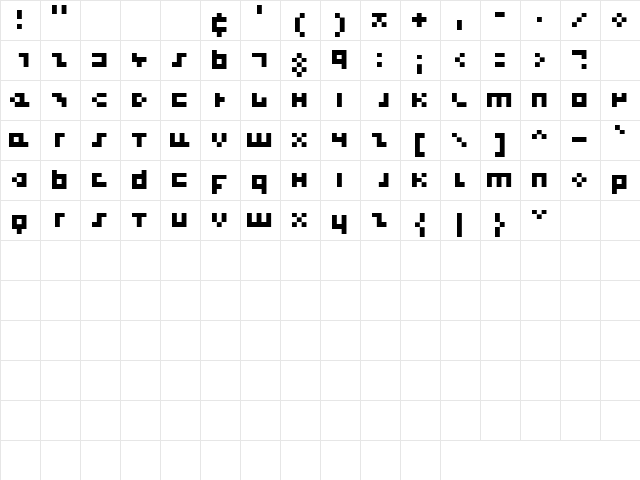
cool three pixels Regular
Design Context for cool three pixels Typeface
cool three pixels is rooted in pixel-grid construction, making it a natural fit for game UI, retro computing aesthetics, and digital nostalgia projects.
A natural choice for retro game titles, chiptune music branding, 8-bit UI, and digital nostalgia projects.
Pro Tip: Pair cool three pixels with flat colour palettes and simple geometric UI elements to reinforce its digital aesthetic.